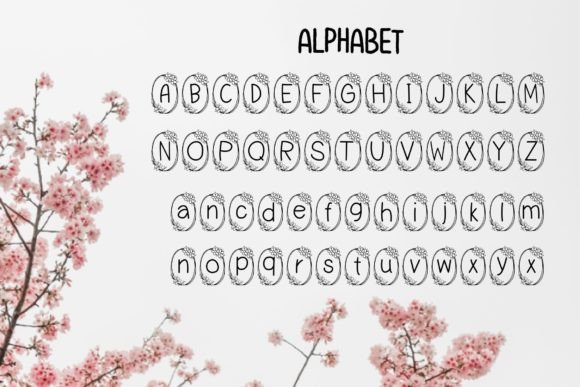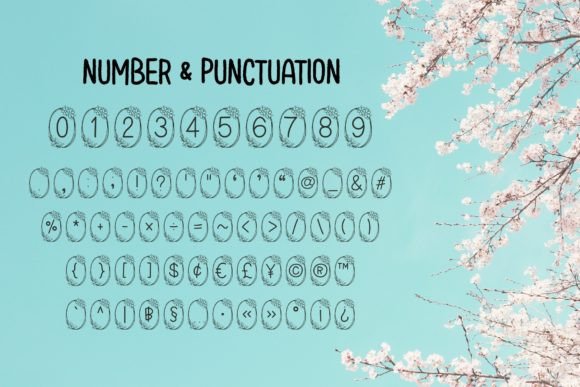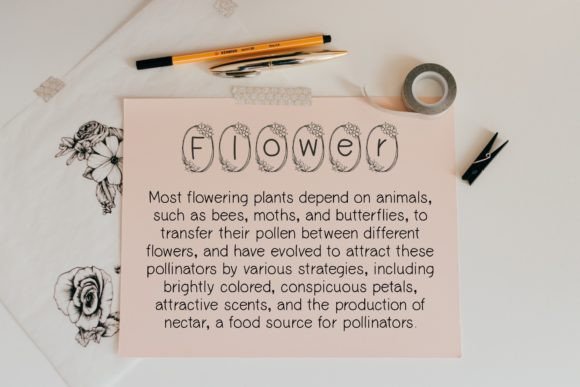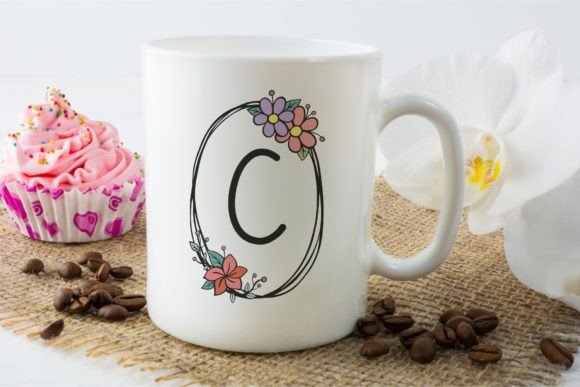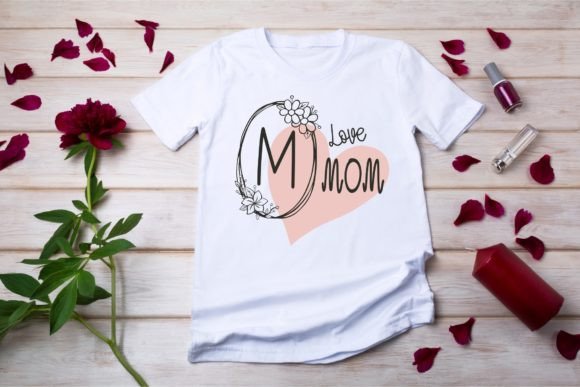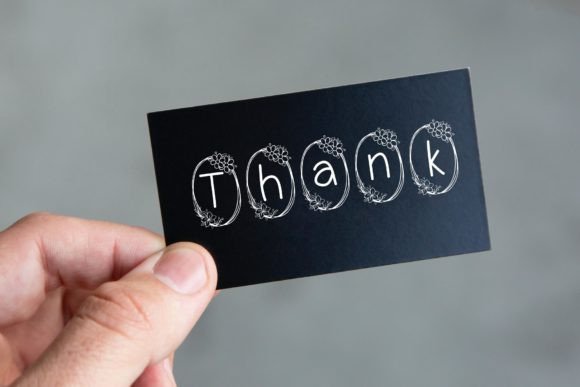
Unleash Your Creativity with Ava Monogram Font
Have you ever stumbled upon the perfect font while scrolling through Pinterest boards or design blogs, and immediately envisioned a stunning project in your mind? For many designers, this is a familiar moment of inspiration. One such font that has captured the hearts of creatives is the elegant Ava Monogram Font. This beautiful decorative font features lovely ornaments that can elevate any design, making it perfect for creating beautiful stationary art, eye-catching social media posts, and cute greeting cards.
Ava Monogram Font is a valuable tool for designers, offering a unique blend of style and functionality. Its intricate details and ornate flourishes can add a touch of sophistication to any project, making it stand out from the crowd. Whether you’re a seasoned designer or a hobbyist looking to create something special, Ava Monogram Font is sure to inspire your next creative endeavor.
Ava Monogram Font Key Features
- Unique Characteristics: Ava Monogram Font features a distinctive, elegant monogram design with intricate details, making it perfect for adding a touch of sophistication to designs.
- Monogram Options: Ava Monogram Font includes various monogram options, allowing designers to customize the font to suit their needs.
- Customization: Ava Monogram Font can be customized with various colors, making it easy to integrate into designs with different color schemes.
Ava Monogram Font Review
I recently had the chance to work with the Ava Monogram Font, and I must say it’s a beautiful addition to any design project. ✨ The elegant, handwritten style is perfect for adding a touch of sophistication and whimsy to your work.
- ✨ Unique and stylish: The Ava Monogram Font’s handwritten style is unlike any other font I’ve seen.
- ✨ Perfect for personal projects: This font is ideal for creating custom invitations, stationery, and other personal items.
- ✨ Easy to read: Despite its handwritten style, the font is surprisingly easy to read, even at smaller sizes.
However, I did encounter a few limitations. ⚠️ The font’s lack of versatility means it’s best suited for specific projects, and it may not be the best choice for more formal or professional work.
- ⚠️ Limited versatility: The Ava Monogram Font is best suited for personal or creative projects.
- ⚠️ May not be suitable for formal work: The font’s handwritten style may not be suitable for more formal or professional work.
The Ava Monogram Font is a beautiful addition to any design project. While it may have its limitations, its unique style and elegant feel make it a great choice for the right project. I would definitely recommend it for personal or creative projects, but may not be the best choice for more formal work.
Common Use Cases for Ava Monogram Font
Ava Monogram Font is commonly used for:
2. Personalized gifts and accessories.